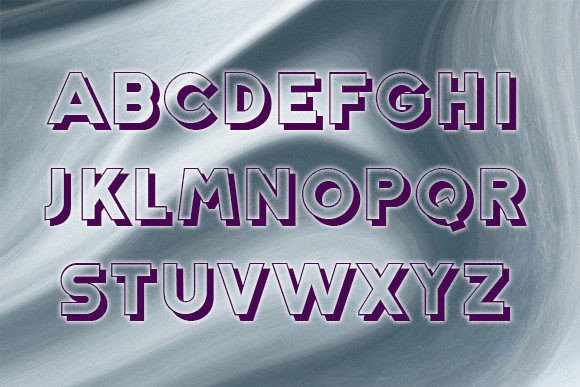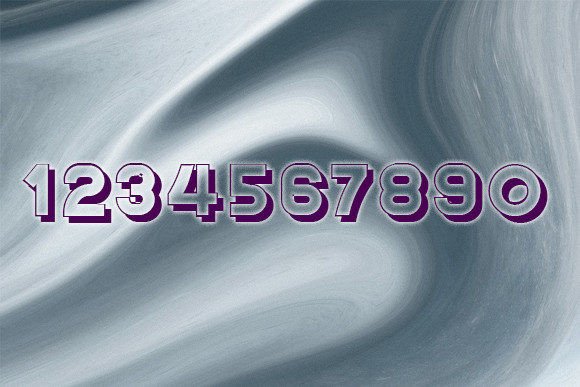
Enter Belly Font, a stunning 3D typeface designed to add depth and visual interest to any design. Whether you’re creating posters, flyers, or social media graphics, Belly Font is the perfect choice to take your project to the next level. Its unique 3D effect will draw attention and create a lasting impression on your audience. With Belly Font, you’ll be able to add a touch of sophistication and creativity to your designs, making them truly unforgettable.
- Unique Characteristics: This font features a unique, rounded sans-serif design with a playful and approachable feel, making it perfect for use in branding, advertising, and editorial content.
Belly Font Review
I recently had the chance to work with the Belly Font, and I wanted to share my honest thoughts on this typeface.
- The Belly Font has a unique and playful feel that’s perfect for creating eye-catching headlines and titles.
- The font’s curved and rounded edges make it visually appealing, especially when used for display purposes.
- The font’s weight and line variations allow for a good level of customization, making it suitable for a wide range of designs.
- The Belly Font may not be the best choice for body text due to its informal and playful nature.
- The font’s style may be overwhelming or distracting when used in large quantities, so use it sparingly.
The Belly Font is a fun and creative typeface that’s perfect for designers looking to add a touch of personality to their designs. While it may have some limitations, its unique style and versatility make it a great addition to any design toolbox.
Getting the Most Out of Belly Font
To get the most out of Belly Font, try using it in combination with bold or italic text to create visual interest.
Experiment with different font sizes and colors to create a unique look.
Use Belly Font in conjunction with other design elements, such as images or graphics, to create a cohesive and engaging design.
Belly Font is commonly used in:
Food and beverage branding
Health and wellness marketing
Children’s products and services
Any project that requires a fun
Q: Can I customize Belly Font to fit my specific design needs?
Yes, Belly Font is a highly customizable font that supports a range of typographic features, including ligatures, swashes, and stylistic sets. You can also use font editing software, such as FontLab or Glyphs, to customize the font to fit your specific design needs.